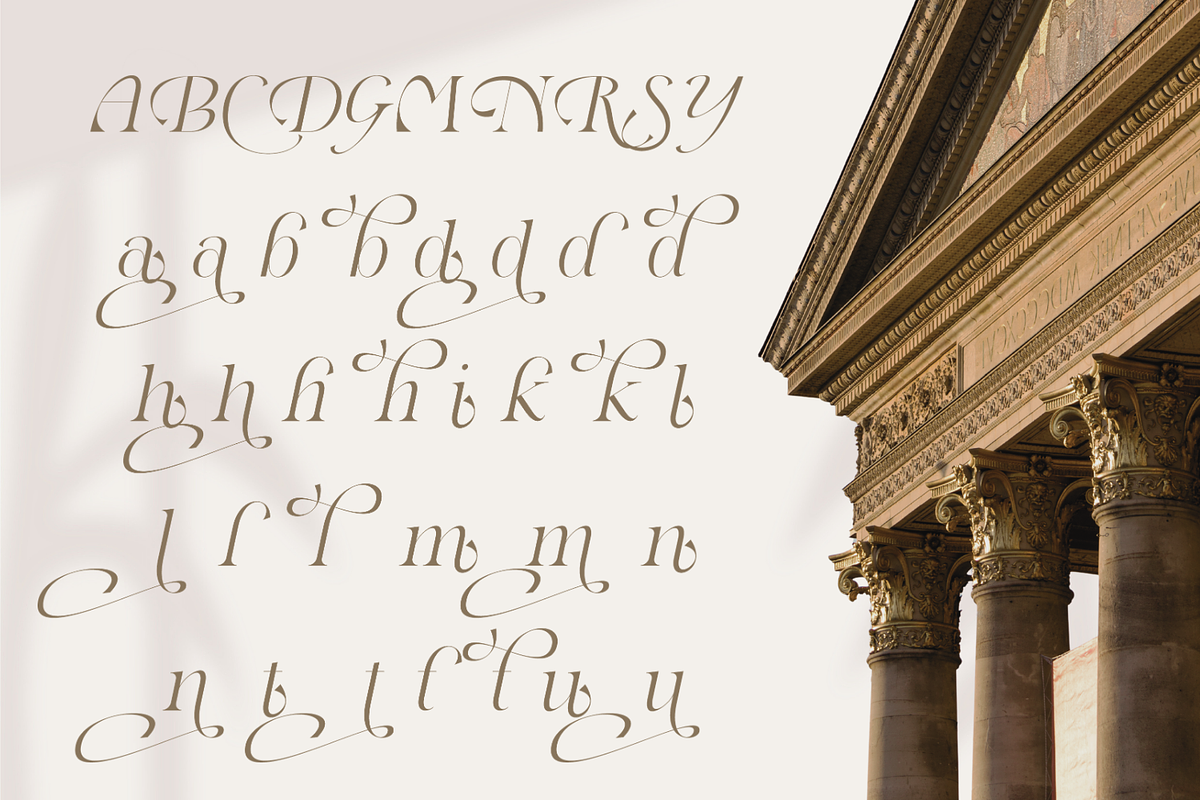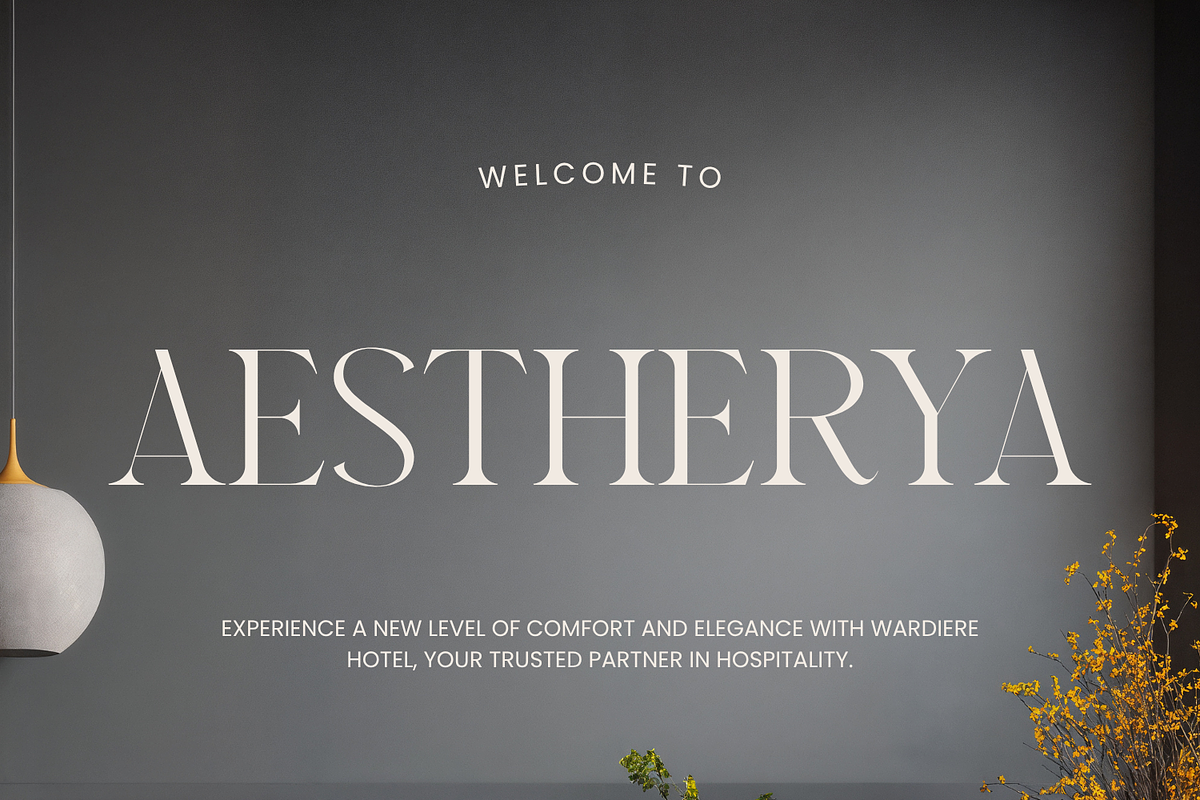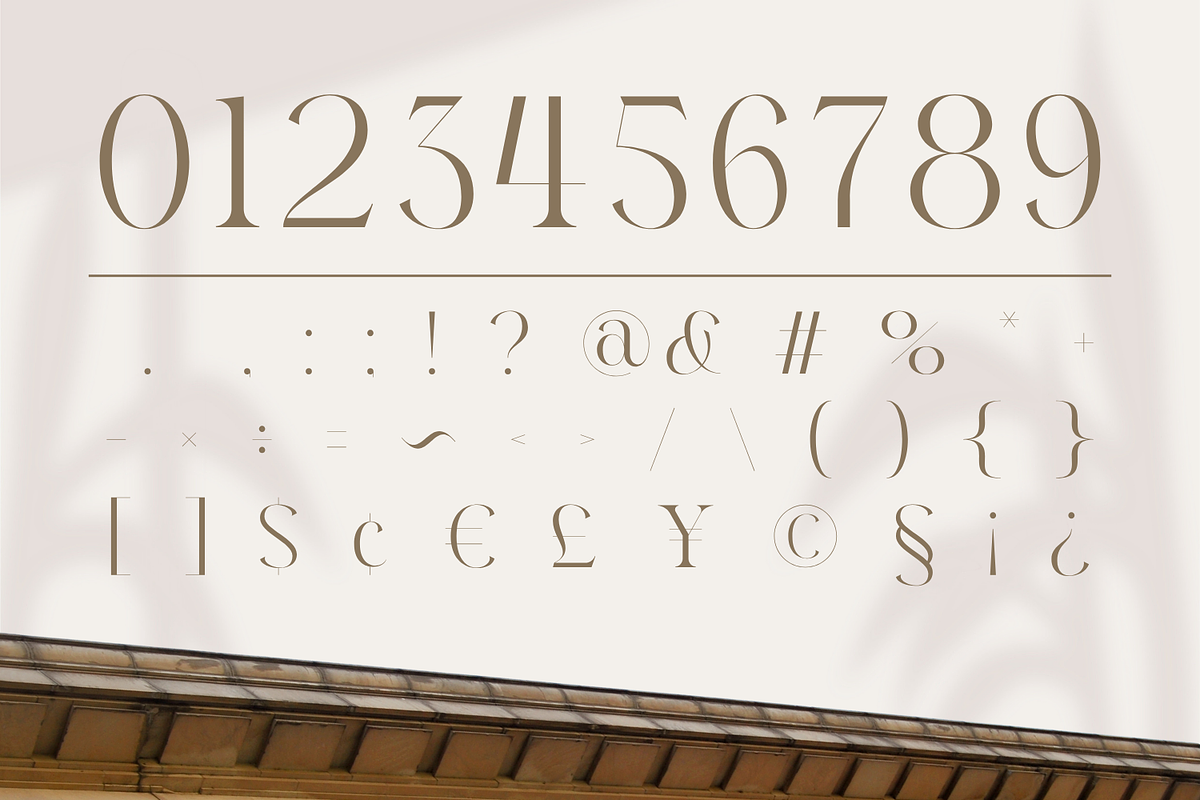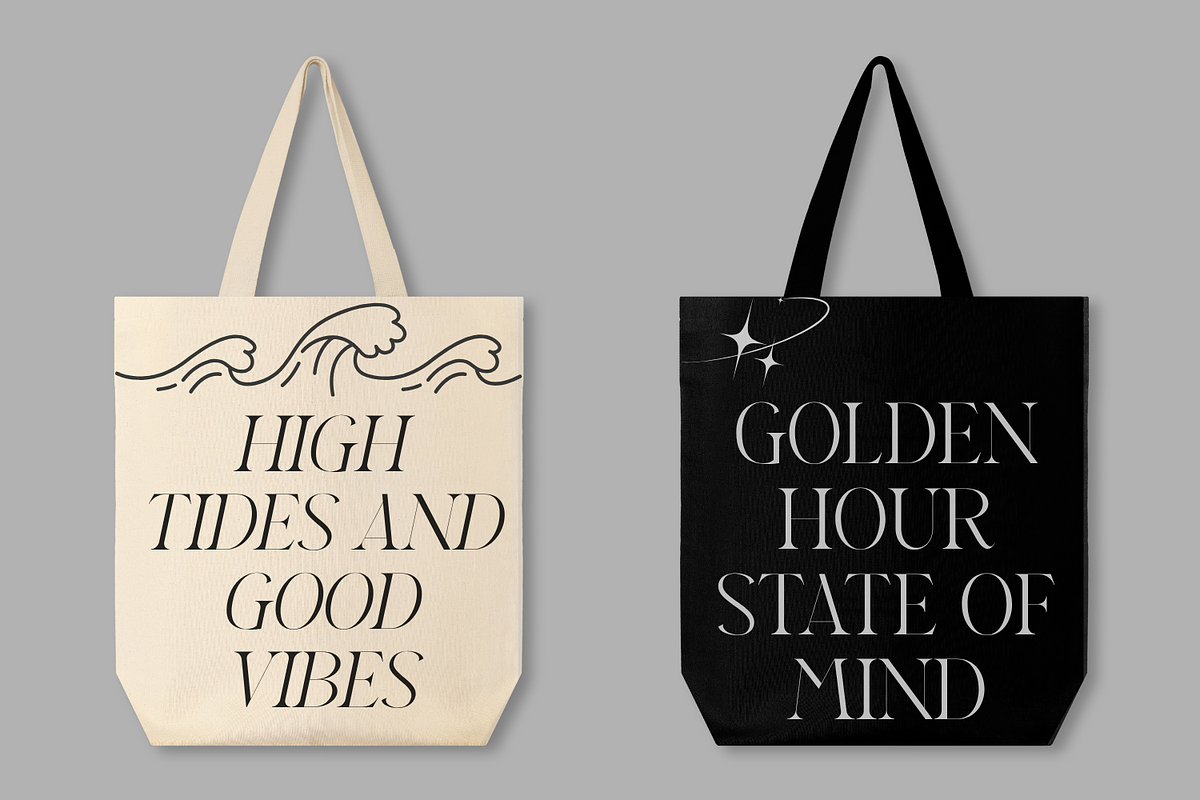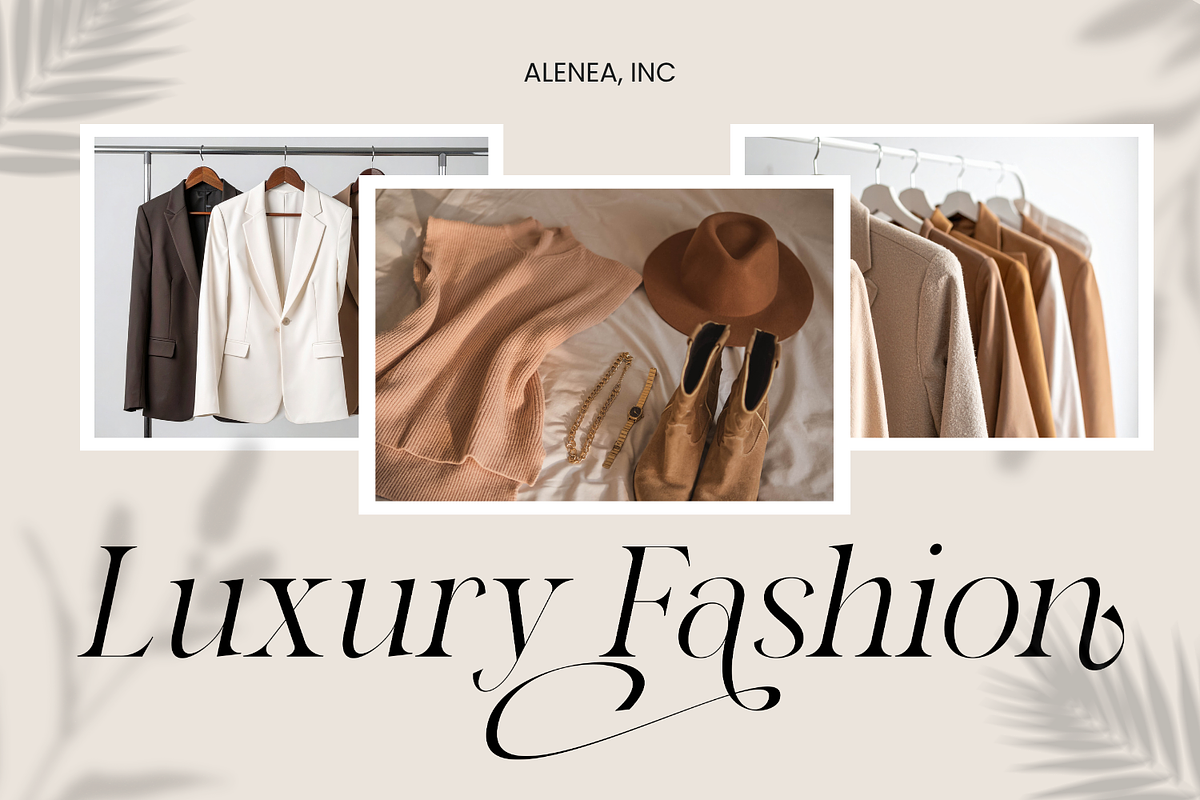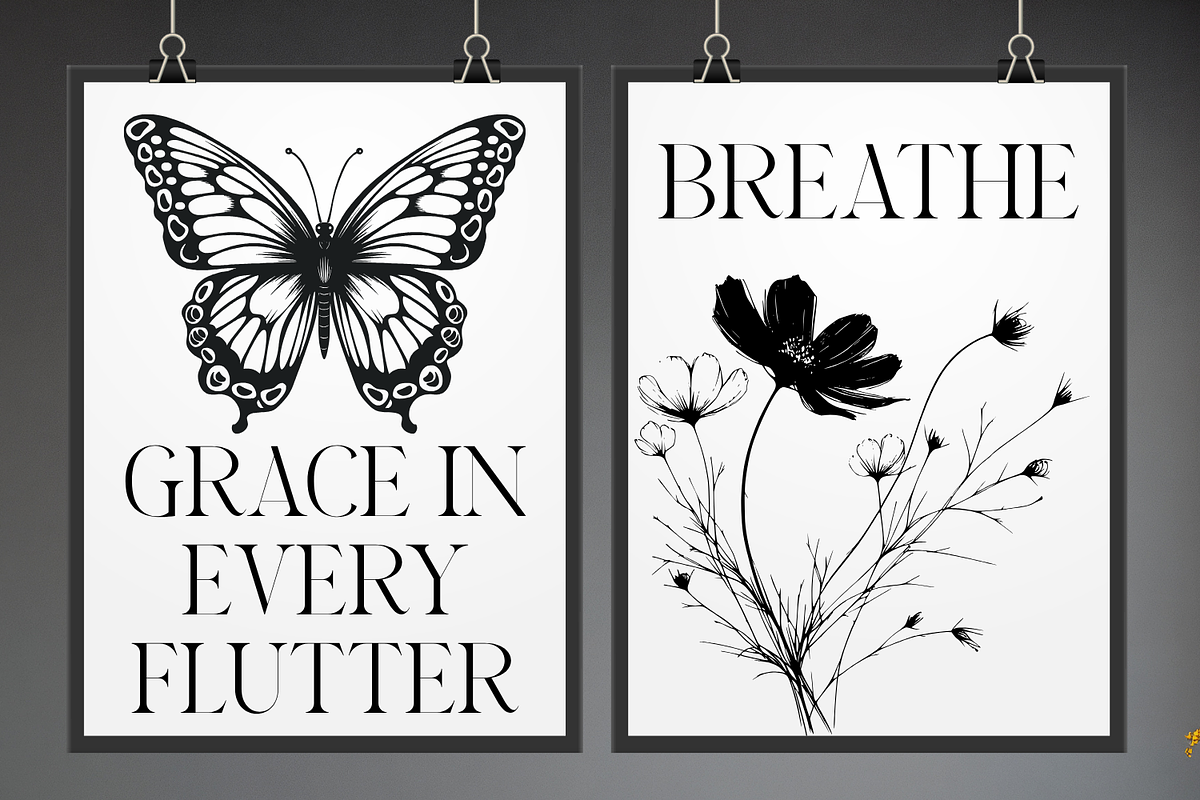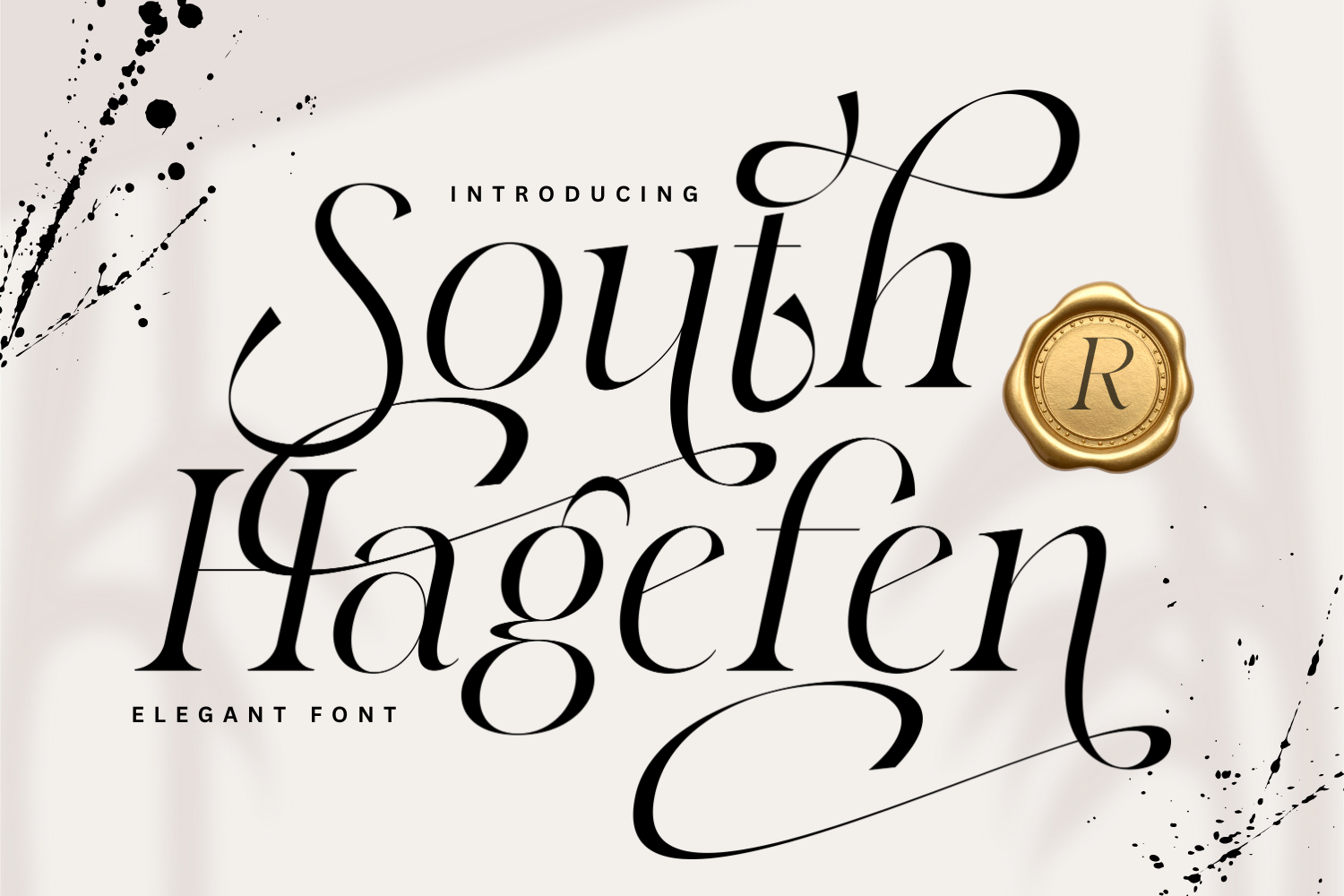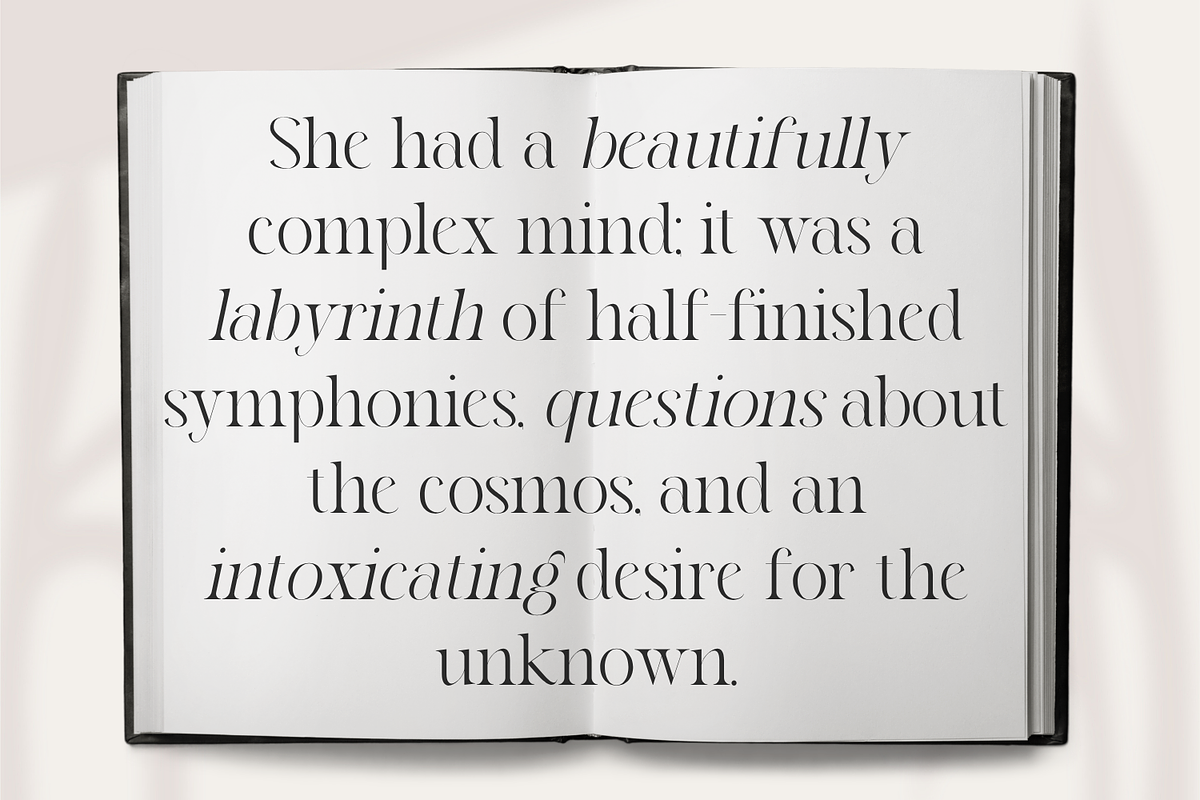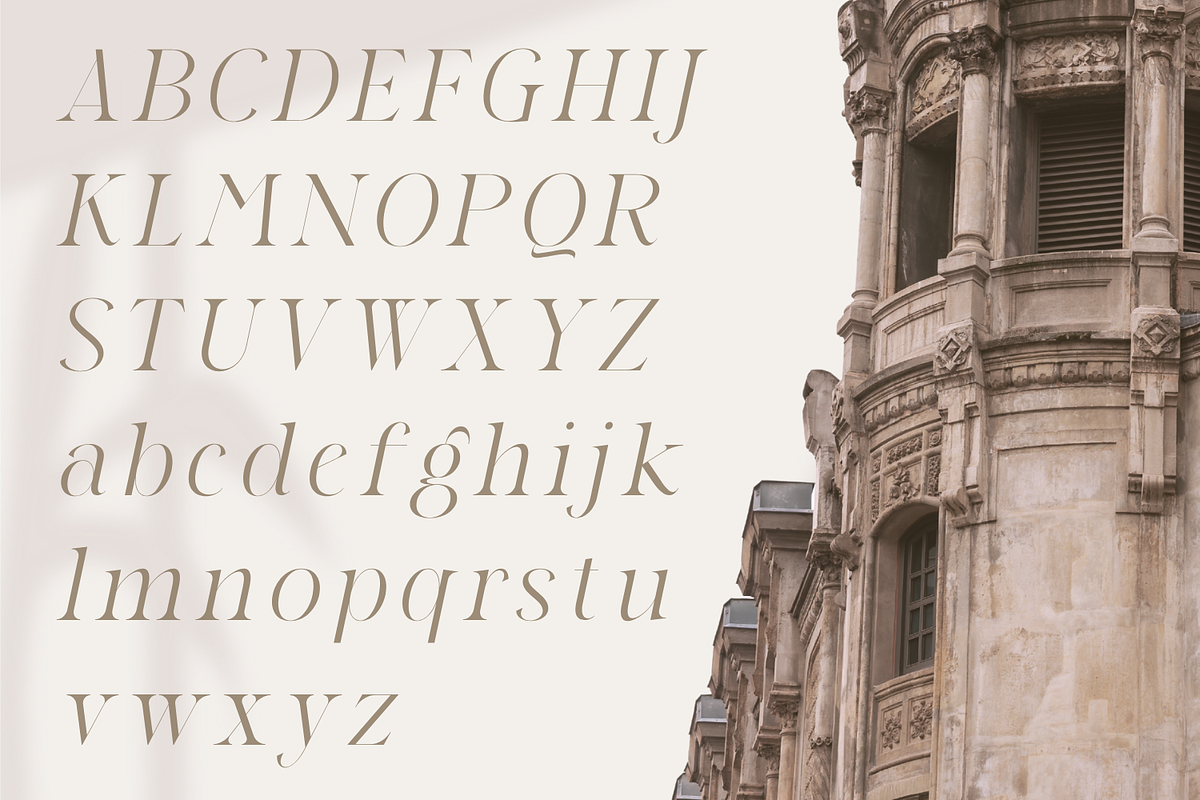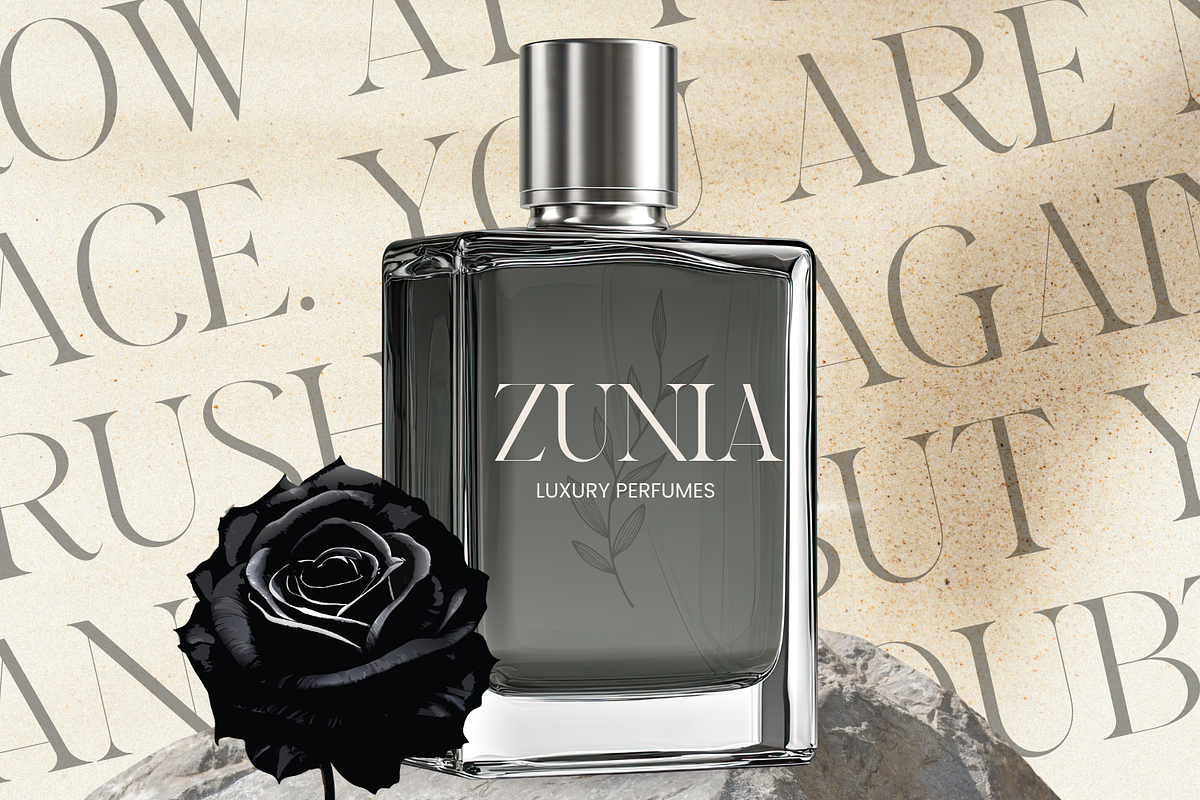
South Hagefen - Luxury Elegant Font
Introducing South Hagefen, an elegant and sophisticated serif font designed to bring a touch of classic luxury to your creative projects. A harmonious blend of clean Didone aesthetics and free-flowing calligraphic strokes, South Hagefen is the perfect choice for high-end branding, luxurious invitations, and fashion editorial designs.
With inspiration rooted in the elegance of classical architecture and copperplate calligraphy, this font offers a captivating duality: the structured simplicity of a high-contrast serif and the dramatic flair of intricate ornamental swashes.
KEY FEATURES - HIGHLIGHTING THE PREVIEWS
Clean Basic Serif Elegance: At the core of South Hagefen is a clean, high-contrast italic serif character set, providing a stable and highly legible foundation for paragraph text. This ensures incredible versatility across various design needs.
Extensive Calligraphic Swashes & Alternates: This is where the magic happens! South Hagefen includes hundreds of decorative alternates, curls, loops, and extended terminals for both uppercase and lowercase letters. These embellishments allow you to create deeply personalized, unique logos and dramatic, eye-catching headlines.
Seamless & Flowing Ligatures: The font design includes carefully crafted ligatures to ensure smooth connections between letters, enhancing the natural, handwritten calligraphic flow.
Character Set: Full character set (A-Z, a-z) Regular & Italic, Numerals, Punctuation, Decorative Alternates, Swashes, Ligatures, and Multilingual Support.